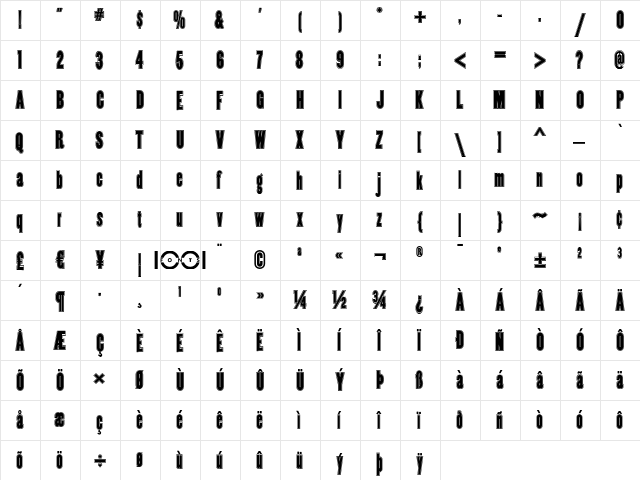
Copper Canyon Inline WBW Regular
Design Context for Copper Canyon Inline WBW Typeface
Copper Canyon Inline WBW brings ornamental detail and strong personality to headlines and identities, where visual impact matters more than quiet functionality.
Font Pairing: Pair with a clean neutral sans-serif for body copy to let Copper Canyon Inline WBW's character lead without overwhelming the composition.
Pro Tip: Use Copper Canyon Inline WBW exclusively at display sizes — it was designed to be seen, not read at length. Let a neutral companion handle body copy.